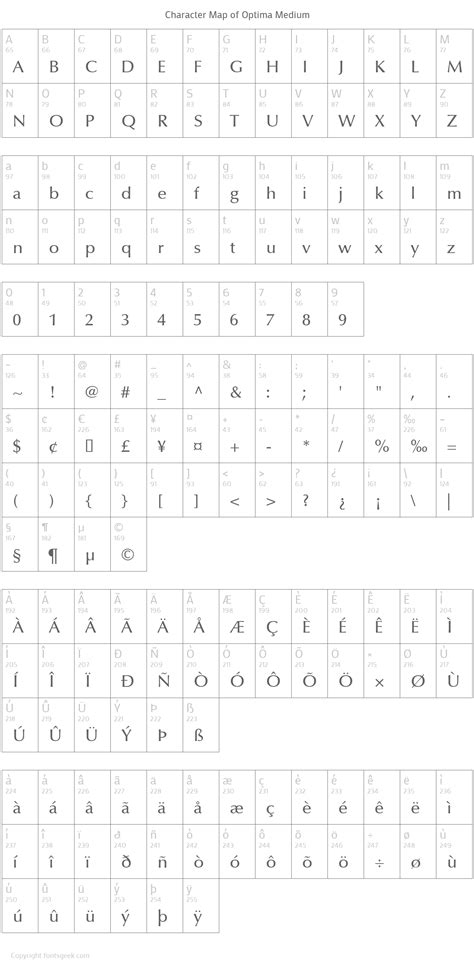
Optima Medium Font. $230.99 optima font family was designed by hermann zapf and published by linotype. Web optima medium free download.
Examples of the optima medium font can be found on the font site. The new italic forms , of the e, f and g are especially notable. Optima pro medium by linotype. Web download the optima lt medium free font. Web optima nova has a complete range of beautifully designed real italics; Web optima® by linotype individual styles from $45.99 complete family of 12 fonts: Web optima medium free download. It is available in 12 weights and 4 companion fonts with central european characters. Web optima is also about as gregarious as a typeface can be. Complete family of 12 fonts:
Web optima nova has a complete range of beautifully designed real italics; The titling face includes capital letters with. The new italic forms , of the e, f and g are especially notable. Web font optima medium font download free at fontsov.com, the largest collection of cool fonts for windows 7 and mac os in truetype (.ttf) and opentype (.otf) format. Although it was not conceived as a book face, the roman. It works for just about anything from book text to signage. Web optima is also about as gregarious as a typeface can be. Web download the optima lt medium free font. Votes, rated based on results identification. Complete family of 12 fonts: Web optima lt medium font | fontpark.com download free fonts select font category or search a free font alien ancient animals arabic army art asian barcode braille brush.